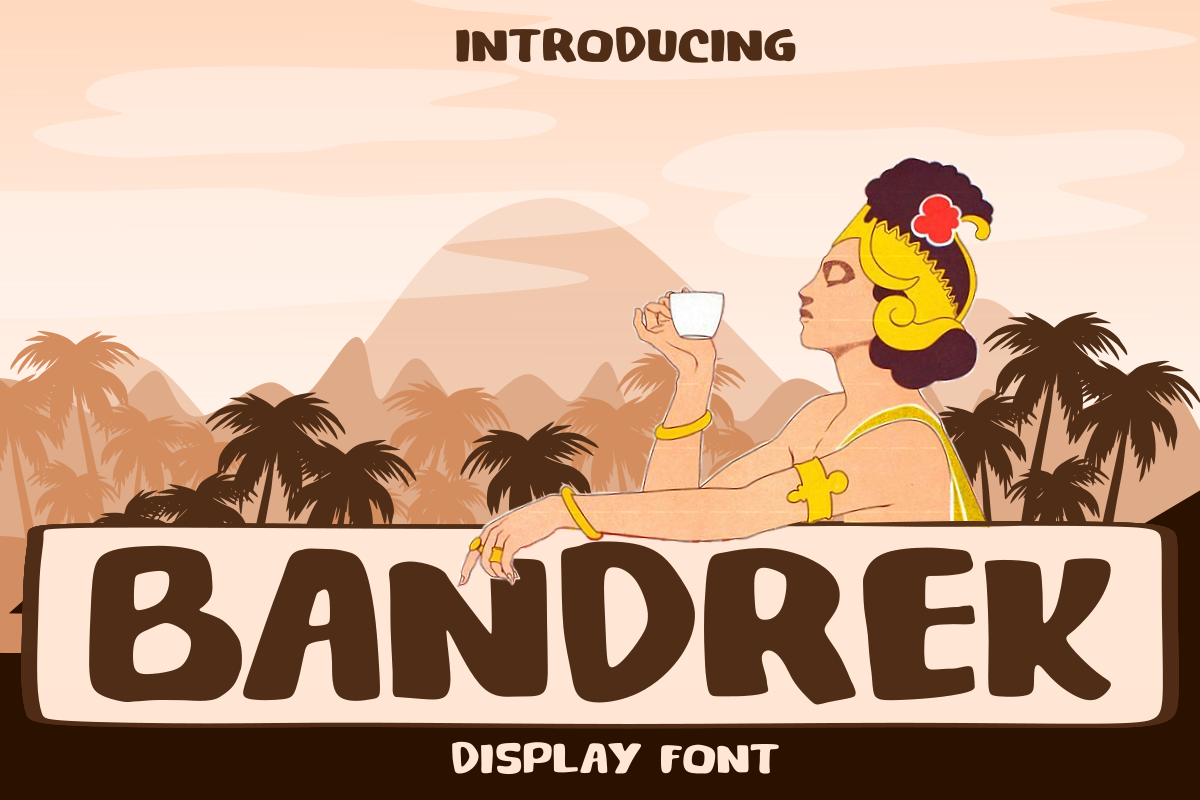
Bandrek
Bandrek Font is a handdrawn all caps display font. Suitable for comical designs, product packaging, illustration, social media, or any design needs this type of font.
Use mixture of uppercase and lowercase to get natural handdrawn letter looks.